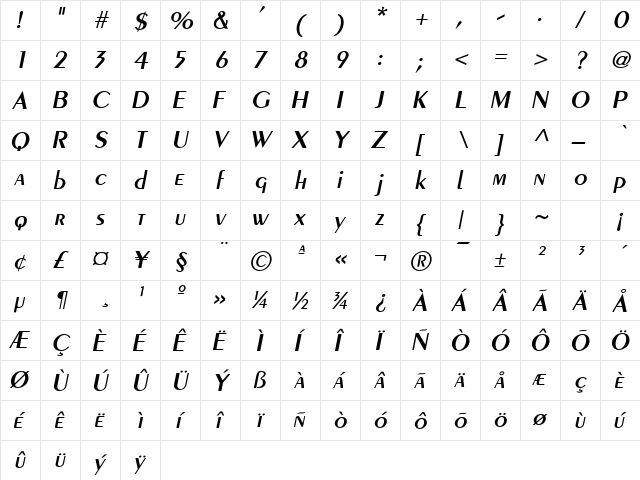
Penoir Oblique
Design Context for Penoir Typeface
Penoir takes a measured approach to typography — its balanced proportions and neutral character make it a reliable workhorse for both digital and print work. The dynamic lean of this cut emphasises speed and emphasis in any layout.
Pro Tip: Try Penoir for annotation and caption copy alongside an upright companion — the contrast in angle creates a dynamic but ordered typographic system.